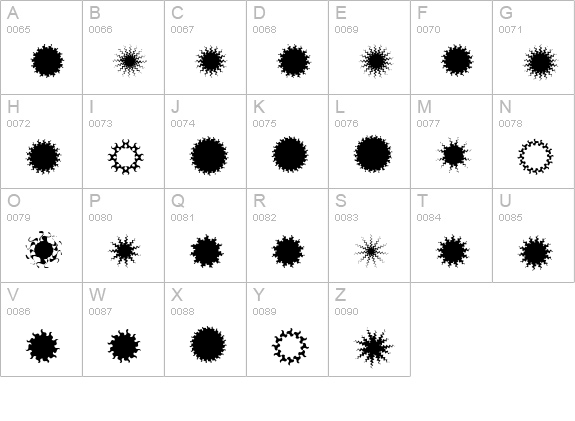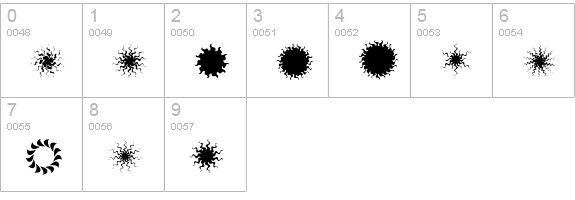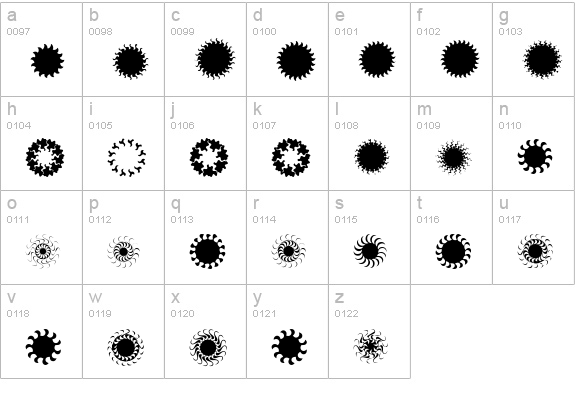
XGalaxies Font Details
Introducing XGalaxies font - a captivating and futuristic typeface that will transport you to the outer reaches of the galaxy with its sleek and stylish design. With its unique blend of sharp angles and smooth curves, XGalaxies exudes a sense of cosmic elegance that is perfect for adding a touch of otherworldly charm to your projects. This versatile font is ideal for a wide range of creative applications, from space-themed designs to tech and sci-fi projects. Whether you're working on a poster, logo, website, or any other creative endeavor, XGalaxies will bring a touch of interstellar flair to your work. The best part? XGalaxies is completely free to download at FontsMarket.com, making it easily accessible to all designers and creatives looking to add a touch of cosmic magic to their projects. So why wait? Download XGalaxies today and let your creativity reach for the stars.